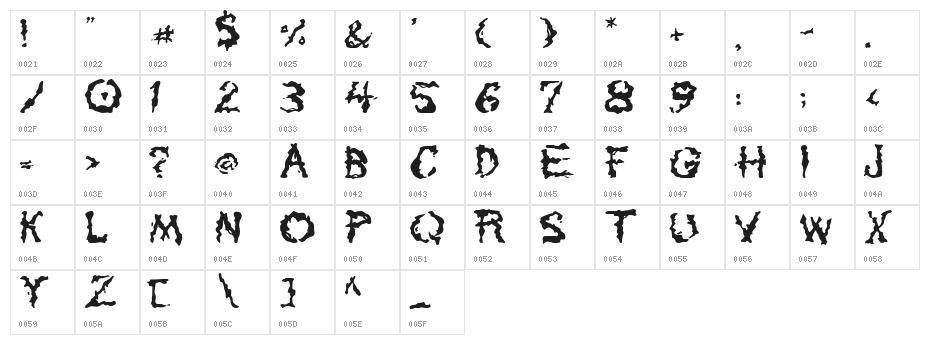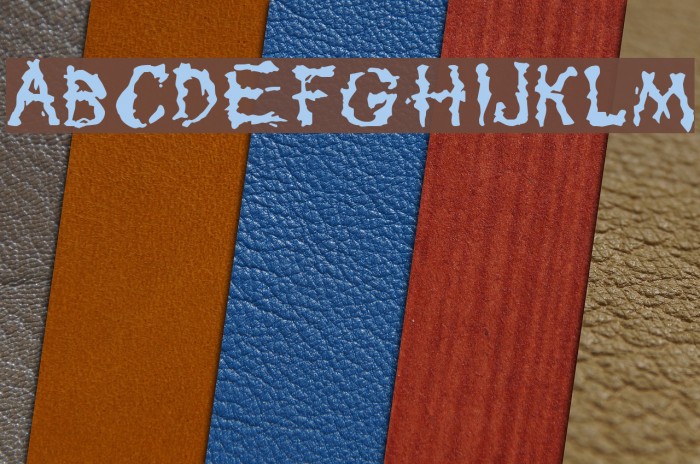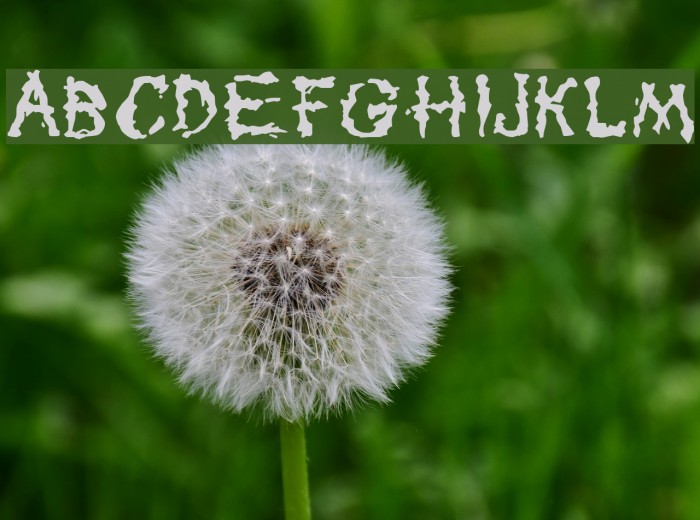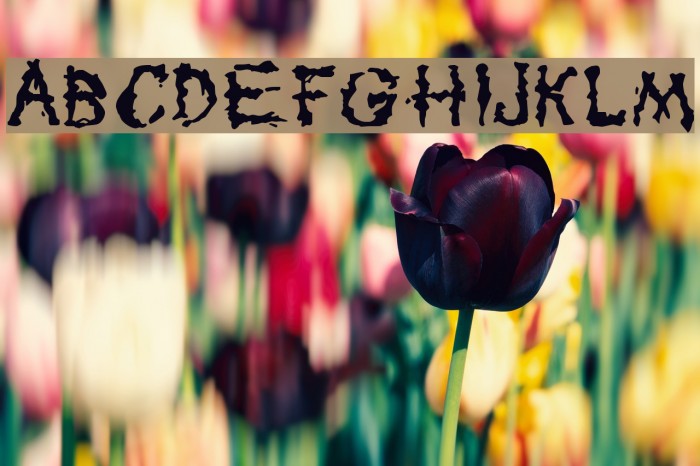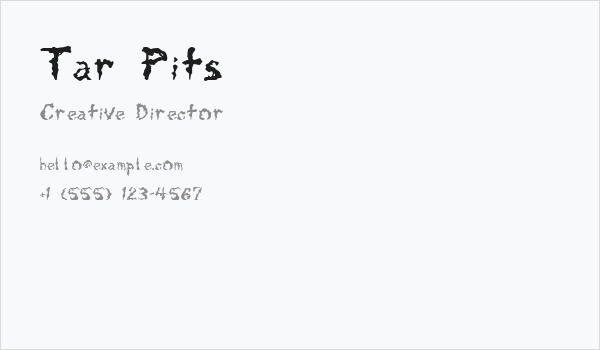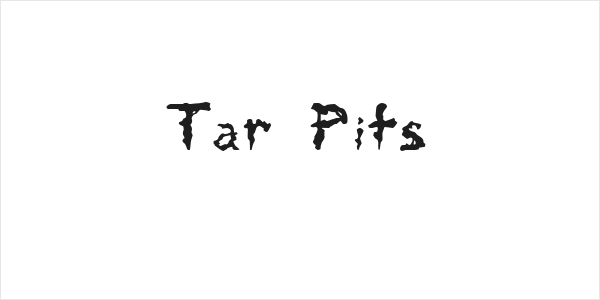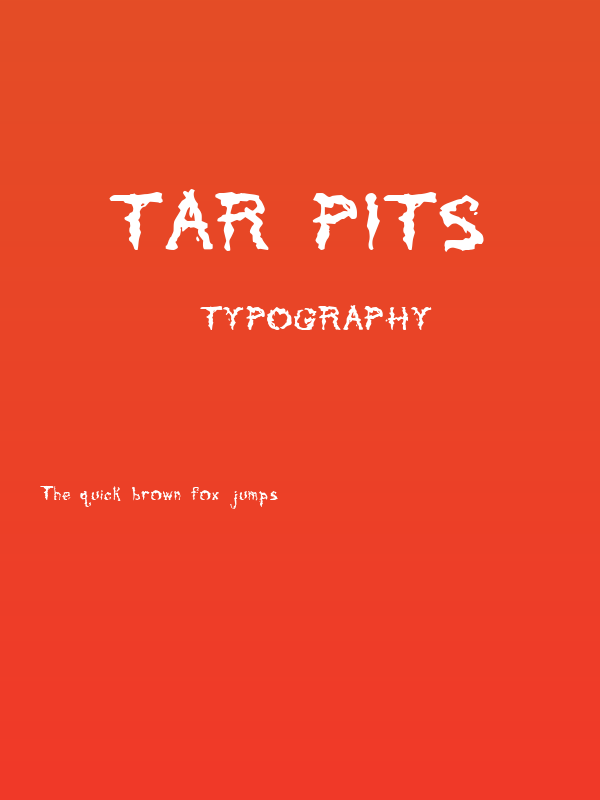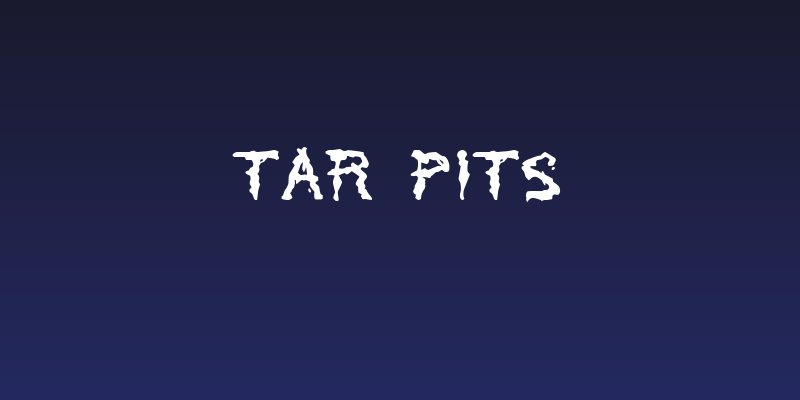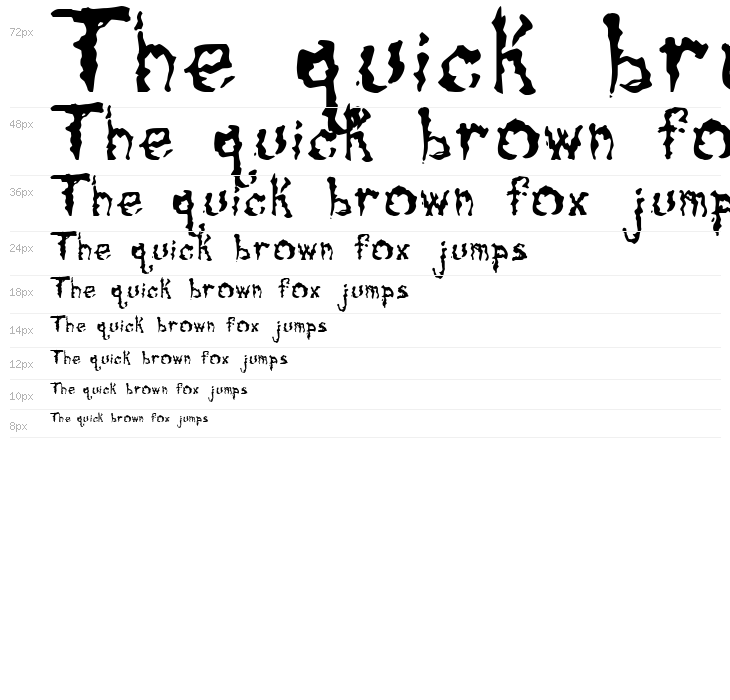
Tar Pits Font
Tar Pits Description
This font exhibits a rugged and distressed appearance, reminiscent of tar or ink splatters. The characters are irregular and jagged, giving an impression of being eroded or weathered. This unique style creates a sense of rawness and unpredictability, making it stand out as a bold statement. The uppercase and lowercase letters maintain a consistent theme of rough edges and uneven strokes, while the numbers and special characters follow suit with the same distressed aesthetic. The overall look is chaotic yet artistic, suitable for projects that require a gritty or unconventional touch.
| Proposed Projects | Ideal for horror movie posters, edgy album covers, or rebellious fashion branding. |